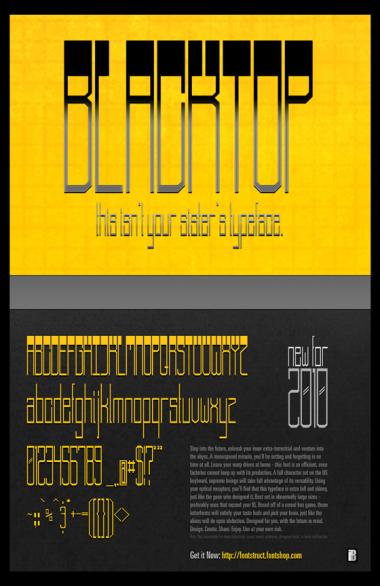
I very, VERY much like the mechanical perfect sensation. Excellent work.
Here's one of the promotional posters for the typeface. The lowercase set works surprisingly well in paragraphs (not shown in this poster).